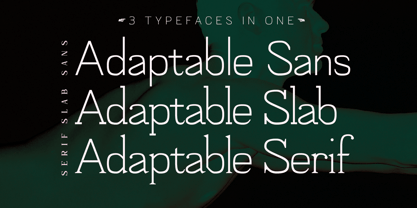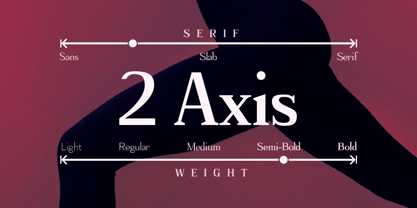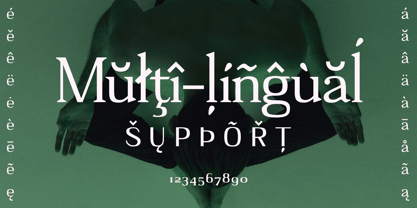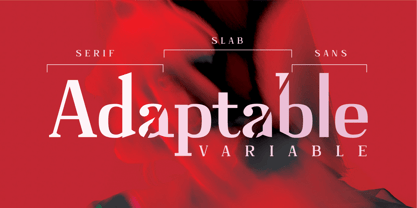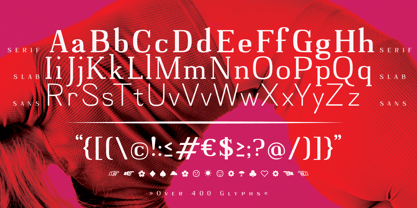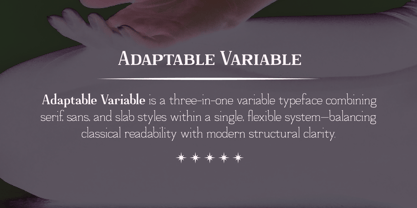
Adaptable
von Varifont
Die Schriftfamilie Adaptable wurde von entworfen und von Varifont veröffentlicht. Adaptable enthält 16 Stile und Familienpaketoptionen. Mehr über diese Familie
Adaptable Variable is a multi-genre type system that brings serif, sans, and slab constructions into a single cohesive variable font. A custom axis allows designers to transition smoothly between these three typographic voices while maintaining consistent proportions, rhythm, and color. Inspired by the readability and balance of old-style serif traditions, Adaptable combines classical structure with a contemporary, architectural squareness that enhances clarity across sizes. Alongside its genre-shifting axis, Adaptable includes a variable weight range from light to bold and is designed to perform equally well in extended text settings and expressive display applications. The family is available as a fully featured variable font as well as individual static styles, and includes extensive multilingual support, true small caps, refined spacing and kerning, and a set of bonus symbols and ligatures. Adaptable is built for designers who value flexibility, legibility, and a unified typographic system.